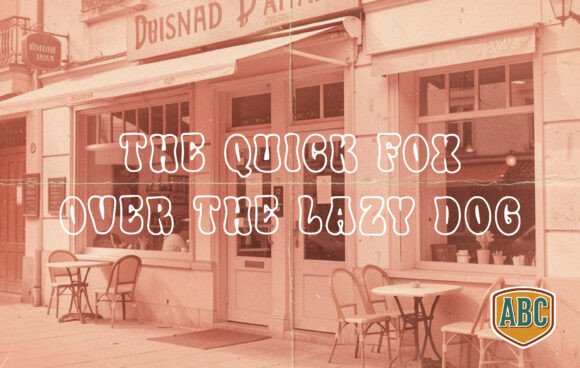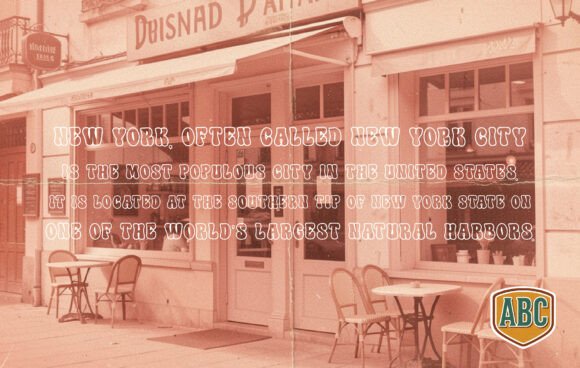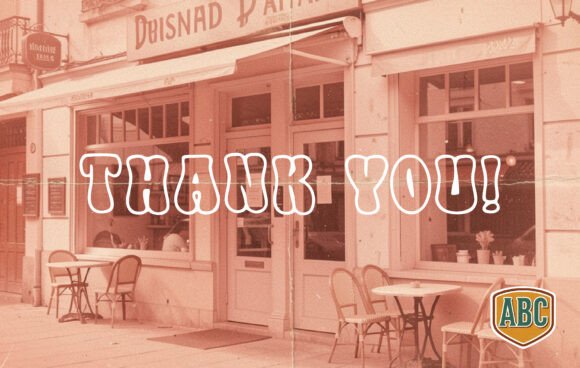
Introduction to Lightcoral Font
As a designer, have you ever stumbled upon an old, faded sign in a vintage shop or café, and been immediately drawn to its charming, bubble-letter aesthetic? The kind of font that screams ‘relax, and let the good times roll’? That’s exactly the kind of vibe Lightcoral Font embodies, a free download from abc font that’s sure to bring a splash of retro charm to your creative project.
What makes Lightcoral Font so valuable for designers is its ability to effortlessly blend in with any layout, while still making a statement. Its soft, rounded contours and friendly, plump letterforms create a welcoming aesthetic that’s perfect for youthful or artisan brands. And with its hollowed, outlined design, it’s a high-quality design resource that can sit beautifully over photographic backgrounds without overwhelming them.
Key Features of Lightcoral Font
- High-quality font with a unique, creative design suitable for various projects.
- Unique characteristics include a soft, pastel color palette and elegant typography, making it ideal for creative projects.
Honest Review: Lightcoral Font
As a designer, I’m always on the lookout for high-quality design resources to elevate my creative projects. Recently, I had the chance to work with the Lightcoral Font, and I’m excited to share my honest review with you.
Here are some things that I think work well with the Lightcoral Font:
However, I did encounter some limitations with the font. Here are a few things to keep in mind:
- ⚠️ Limited font styles and variations
- ⚠️ May not be suitable for complex, multi-page designs
Overall, I think the Lightcoral Font is a great addition to any designer’s toolkit. While it may have some limitations, its high-quality design and ease of use make it a valuable resource for any creative project.
Tips for Getting the Most Out of the Lightcoral Font
Some tips for getting the most out of the Lightcoral Font include using it in a creative project, such as a logo or branding material, and experimenting with different font sizes and colors to achieve the desired effect. You can also use the font in conjunction with other design resources, such as graphics and images, to create a high-quality design.
The Lightcoral Font is a versatile design resource that can be used in a variety of contexts, including branding materials, social media graphics, and presentations. It’s also a great option for free download, making it an accessible design resource for creatives.